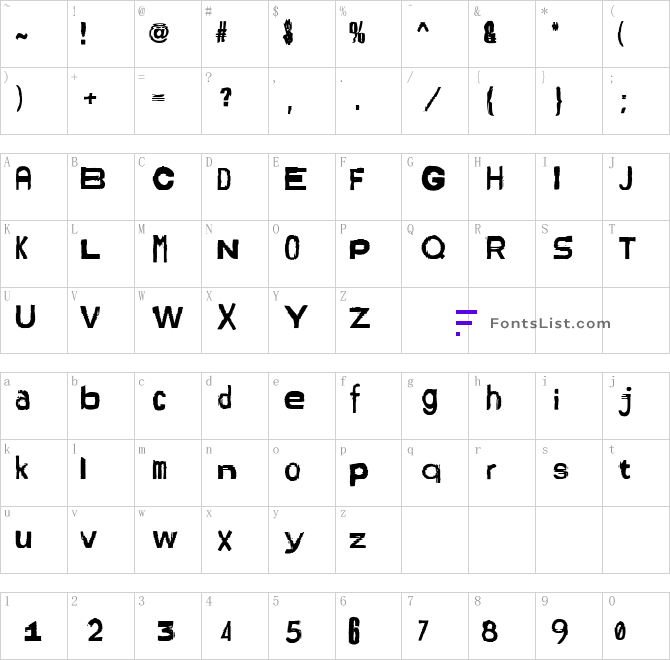
- Font Name:Amsterdrum Grotesk
AmsterdrumGrotesk-NormalRegular.ttf is a very beautiful artistic font, AmsterdrumGrotesk-NormalRegular.ttf is widely used in the design and printing of various books and pictures,AmsterdrumGrotesk-NormalRegular.ttf has a strong visual impact,AmsterdrumGrotesk-NormalRegular.ttf is a commonly used font in newspapers, magazines and books, and is used in posters, e-commerce Poster design, store design, logo design, font design and other fields.AmsterdrumGrotesk-NormalRegular.